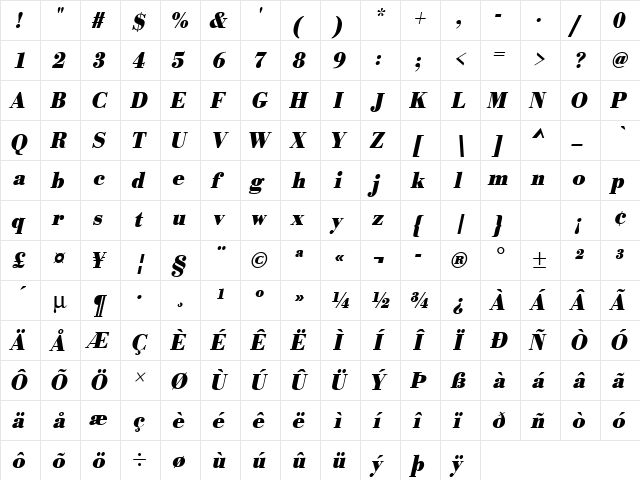
URWBodoniTExtNar Bold Oblique
Design Context for URWBodoniTExtNar Typeface
URWBodoniTExtNar is a composed and adaptable typeface that performs quietly and consistently across a wide range of design contexts. Its italic angle brings a sense of urgency and motion to the letterforms. The heavy weight commands attention and anchors typographic hierarchies.
Pro Tip: Use URWBodoniTExtNar for emphasis, pull quotes, and subheadings where its slanted energy can add rhythm to the layout.